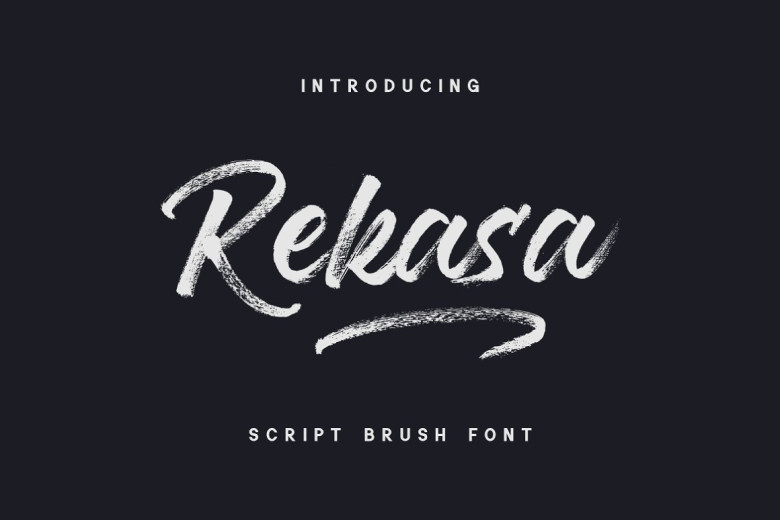
Rekasa Font
Rekasa is a stylish and easily adaptable brush that can be used for logos, T-shirt printing or sport designs – it looks fantastic in many settings!
Rekasa Brush Script Font